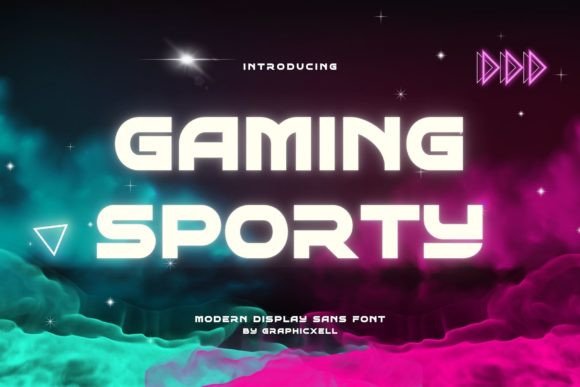
Welcome to the gaming arena, where boldness and energy collide! Embark on an extraordinary adventure with Gaming Sporty Font, the ultimate display font that ignites the passion for typography logos. Crafted by the ingenious minds at Graphicxell, this font is not just a collection of letters; it's a gateway to a world teeming with adrenaline and exhilaration.
Immerse yourself in the electrifying aura of Gaming Sporty, a sans serif font that commands attention like a champion. Its audacious letterforms, with their wide and robust stance, demand recognition and add an irresistible spark to any design. This font is tailor-made for gaming logos, yearning to be emblazoned across screens and consoles, beckoning players into immersive virtual worlds.
With Gaming Sporty as your weapon of choice, conquer the realm of posters and headlines, leaving an indelible mark on the minds of your audience. Its energetic strokes evoke a sense of action and fervor, propelling your message forward with unstoppable momentum. Prepare to witness jaws dropping and hearts racing as your designs come to life with an explosive visual impact that resonates with gaming enthusiasts worldwide.
Gaming Sporty is more than just a font; it's a portal to a realm where imagination reigns supreme. Its captivating presence transcends the boundaries of ordinary typography, inspiring awe and admiration. Unleash your creativity and explore uncharted territories, crafting masterpieces that leave an indelible mark on the gaming landscape.